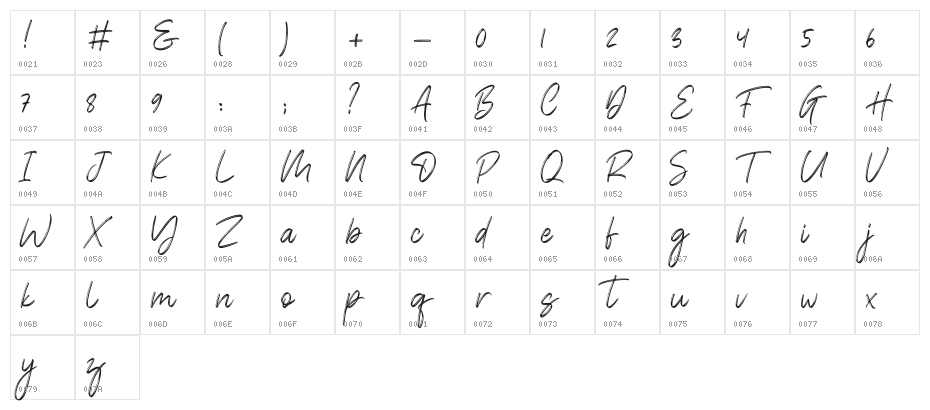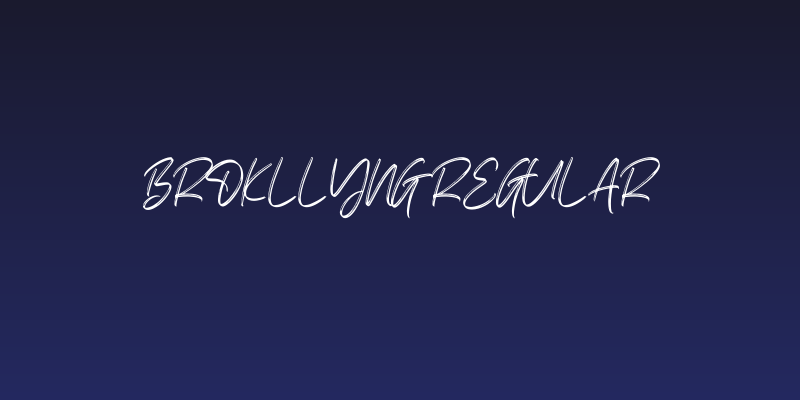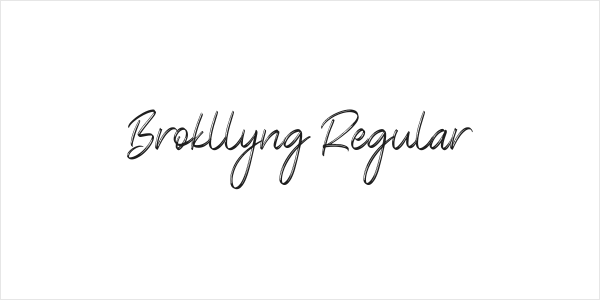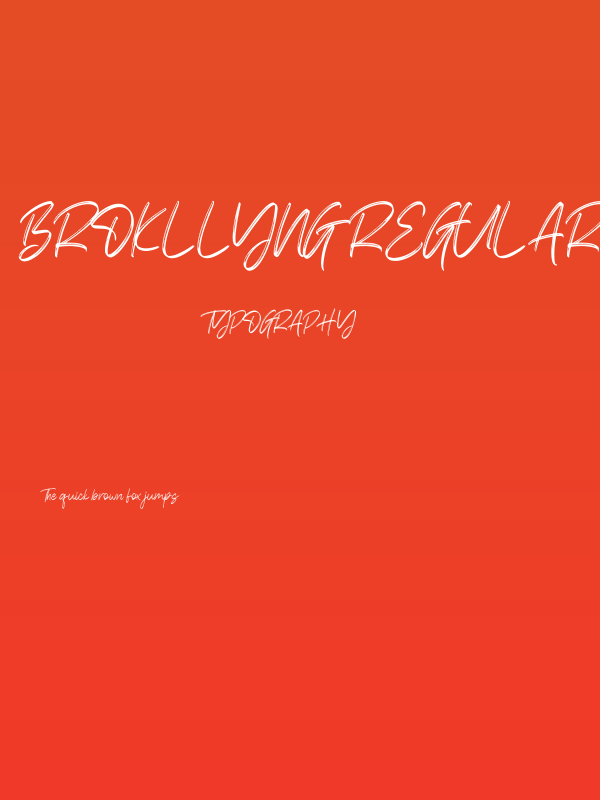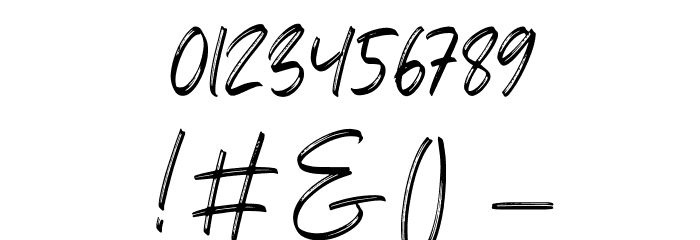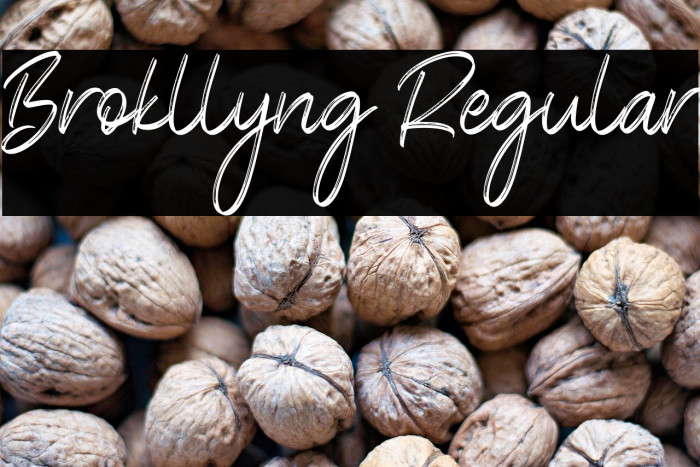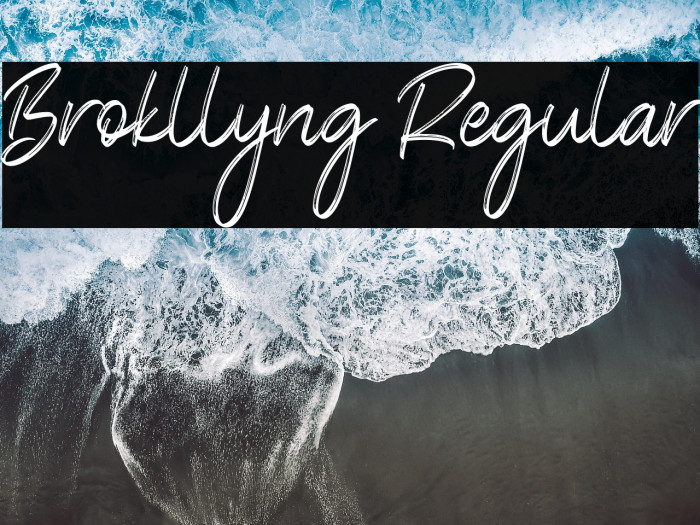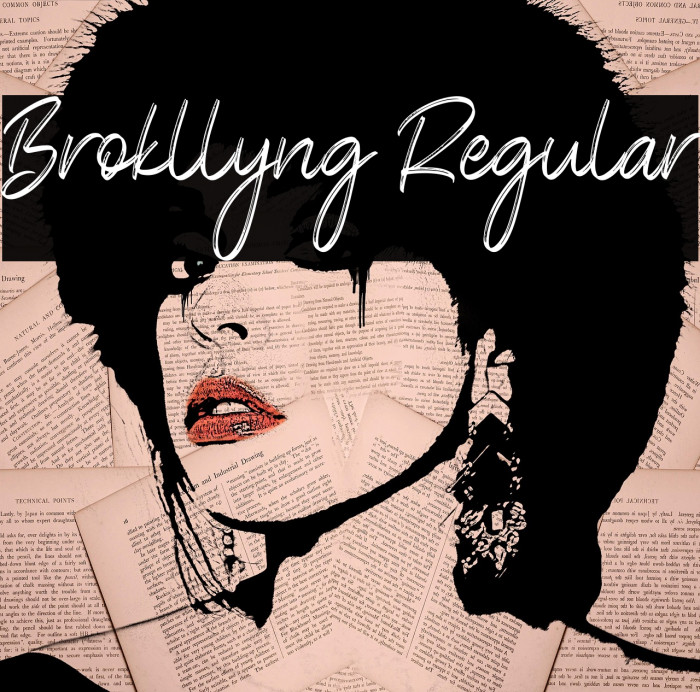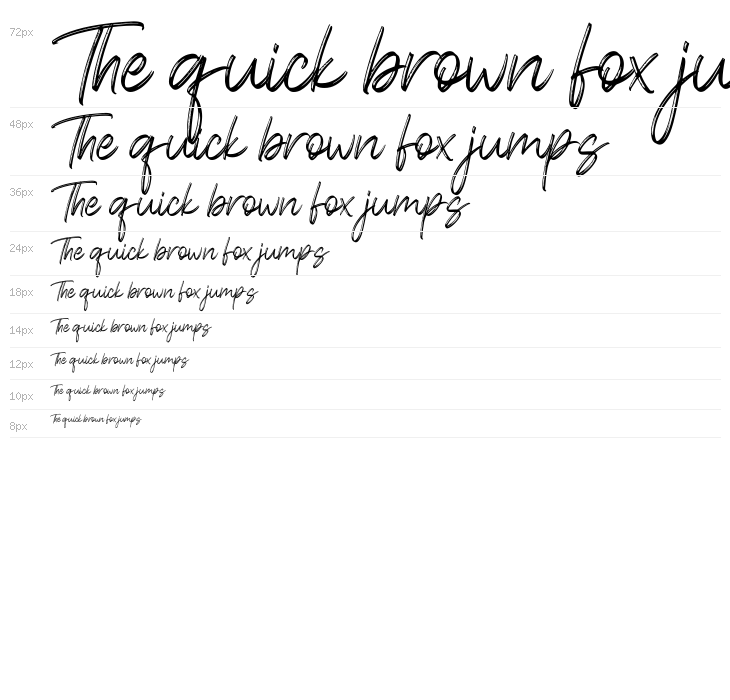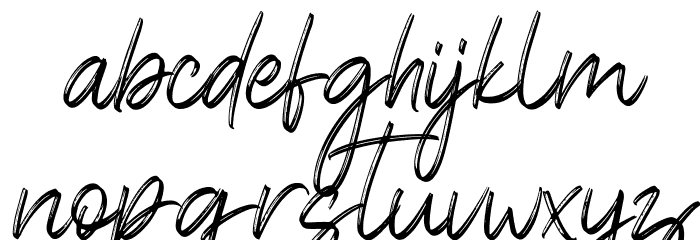
Brokllyng Regular Font
Brokllyng Regular Description
This font exudes a dynamic and energetic vibe, characterized by its flowing, cursive script style. The letters are interconnected, creating a sense of continuity and movement. The strokes are bold and expressive, with varying thickness that adds a lively contrast to the overall appearance. The uppercase letters maintain a consistent height, while the lowercase letters exhibit a playful bounce, enhancing the font's informal and approachable nature. The numerals and special characters are crafted with the same fluidity, ensuring a cohesive look across all elements. This font is perfect for projects that require a personal touch or a sense of spontaneity.